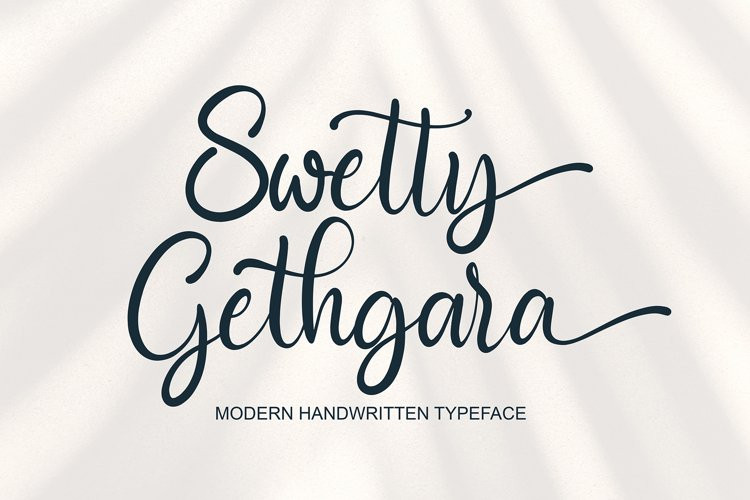
Swetty Gethgara Font
Swetty Gethgara FontSwetty Gethgara font with new style, this font will perfect for many different project ex: quotes, logo, blog header, poster, banding, letter, invitation, stationery, etc…